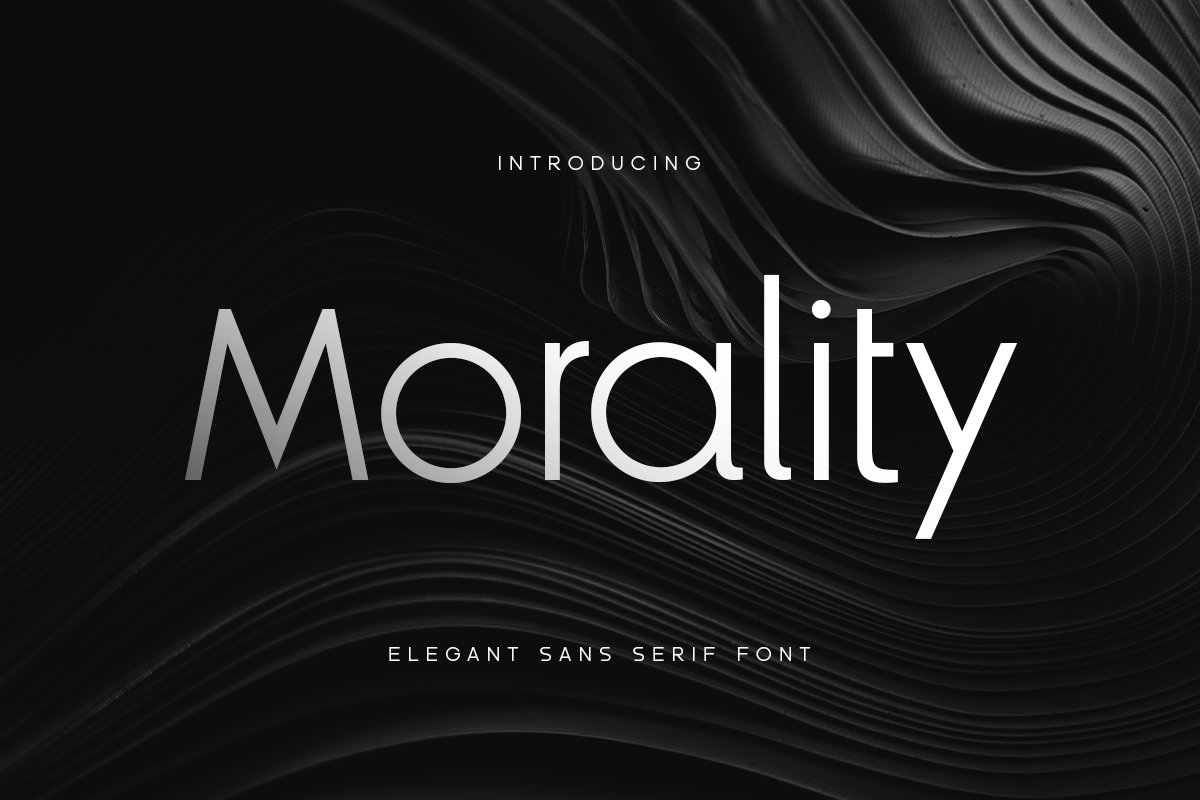
Morality
-Elegant Sans Serif Font
Morality
Morality is a Modern Elegant Sans Serif Font that perfect for branding, logotyp, poster design, etc
A new San Serif Font that we created special for Headline, Title and more stand out typography needs. It’s so perfect to add your style and headline overview. And specially for Headline font, we crafted for unique style and modern feels so enjoy to create any project that will show your main idea out.